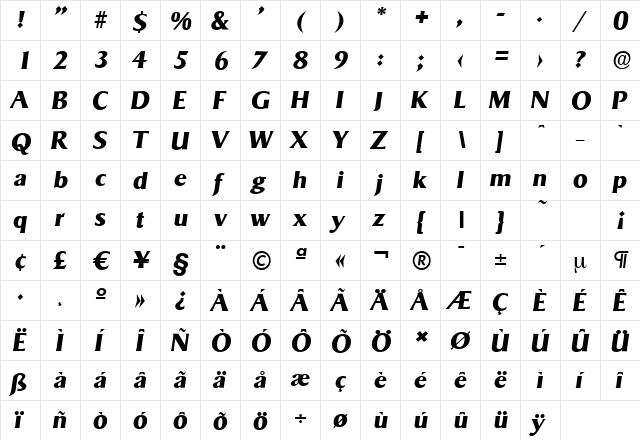
SigvarSerial-Xbold Italic Font Preview
SigvarSerial-Xbold Italic
SigvarSerial-Xbold Italic Font Details
Design Context for SigvarSerial-Xbold Typeface
SigvarSerial-Xbold takes a measured approach to typography — its balanced proportions and neutral character make it a reliable workhorse for both digital and print work. Its italic angle brings a sense of urgency and motion to the letterforms. Its bold stroke weight gives it real presence on the page.